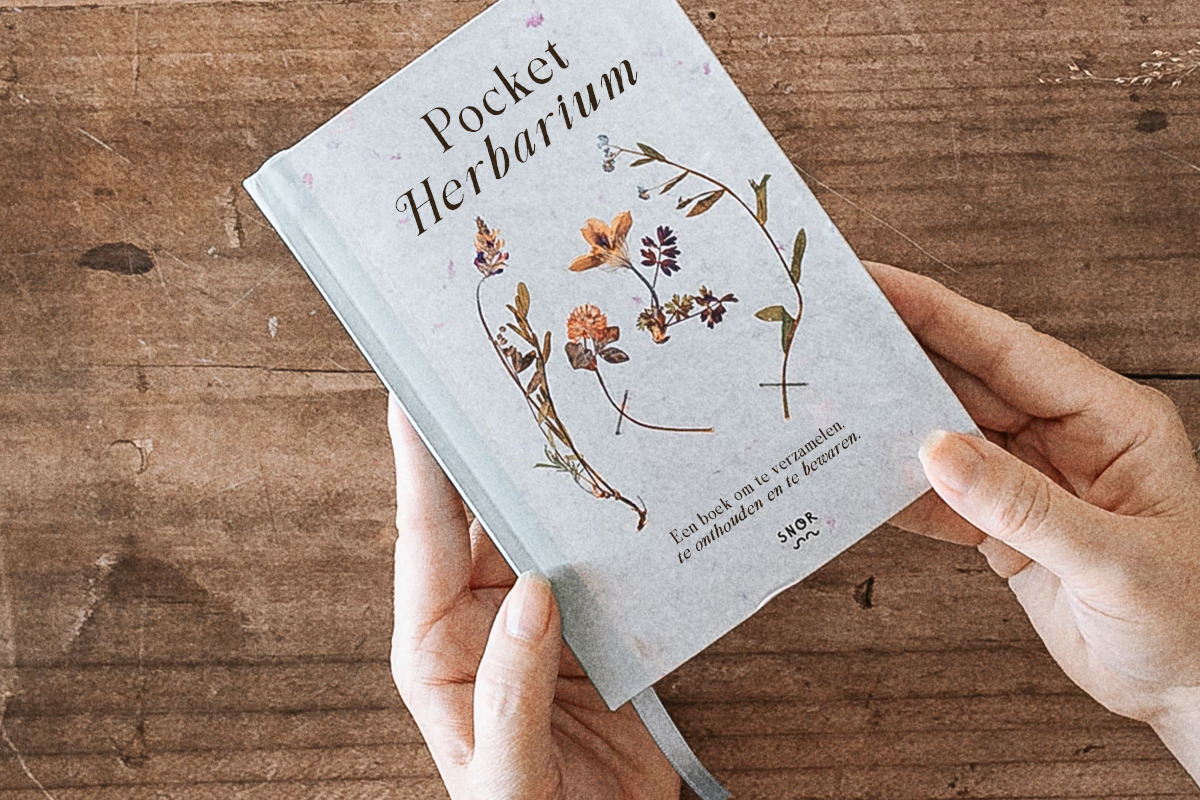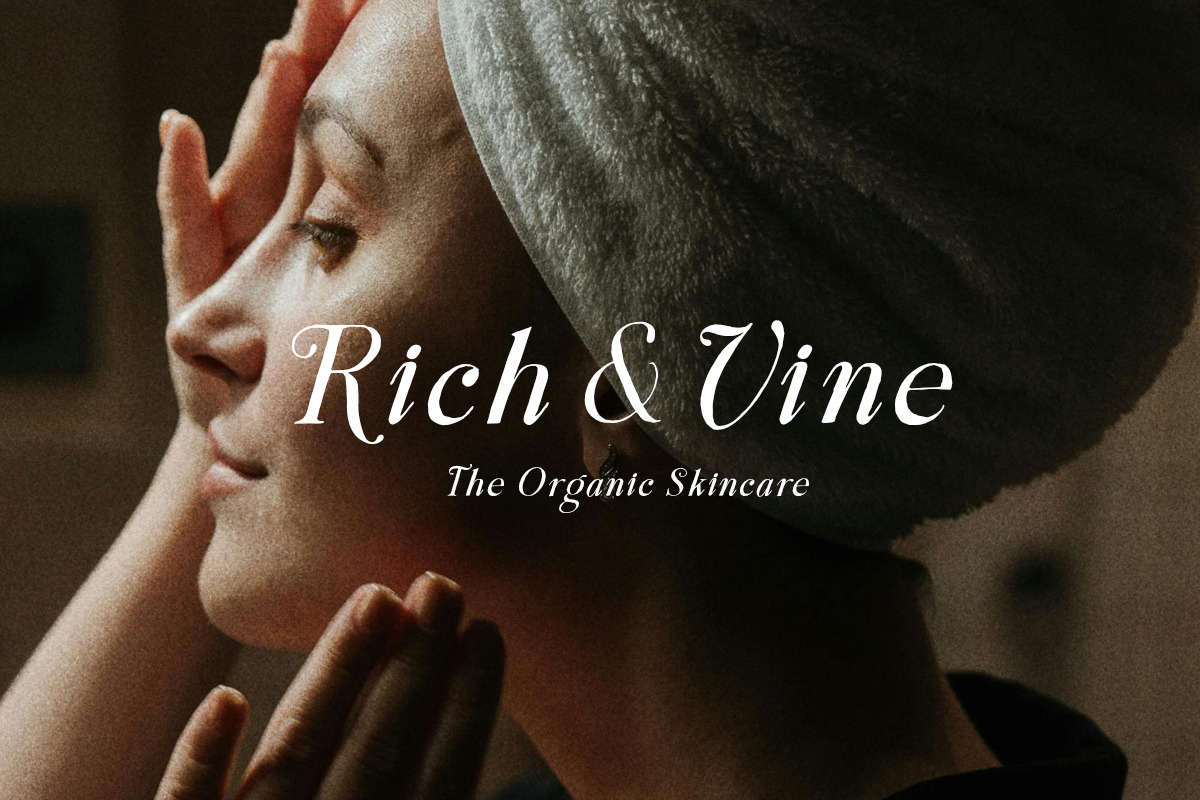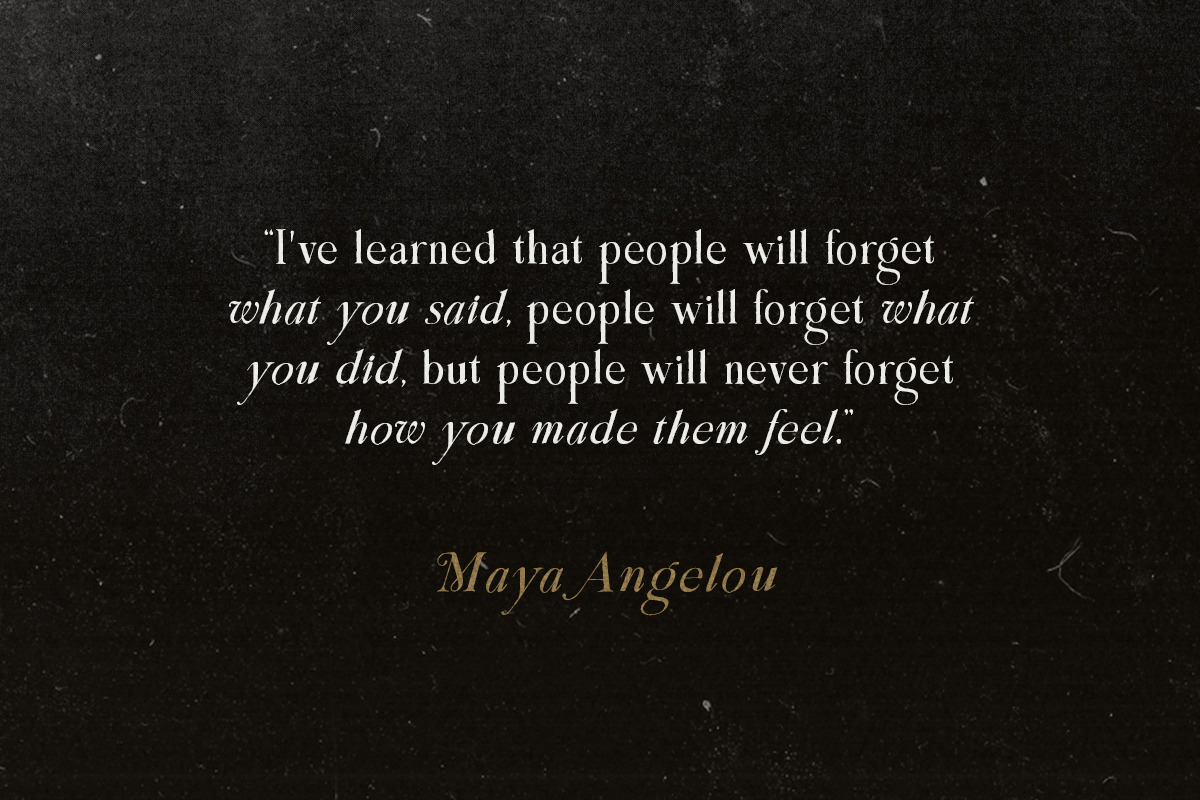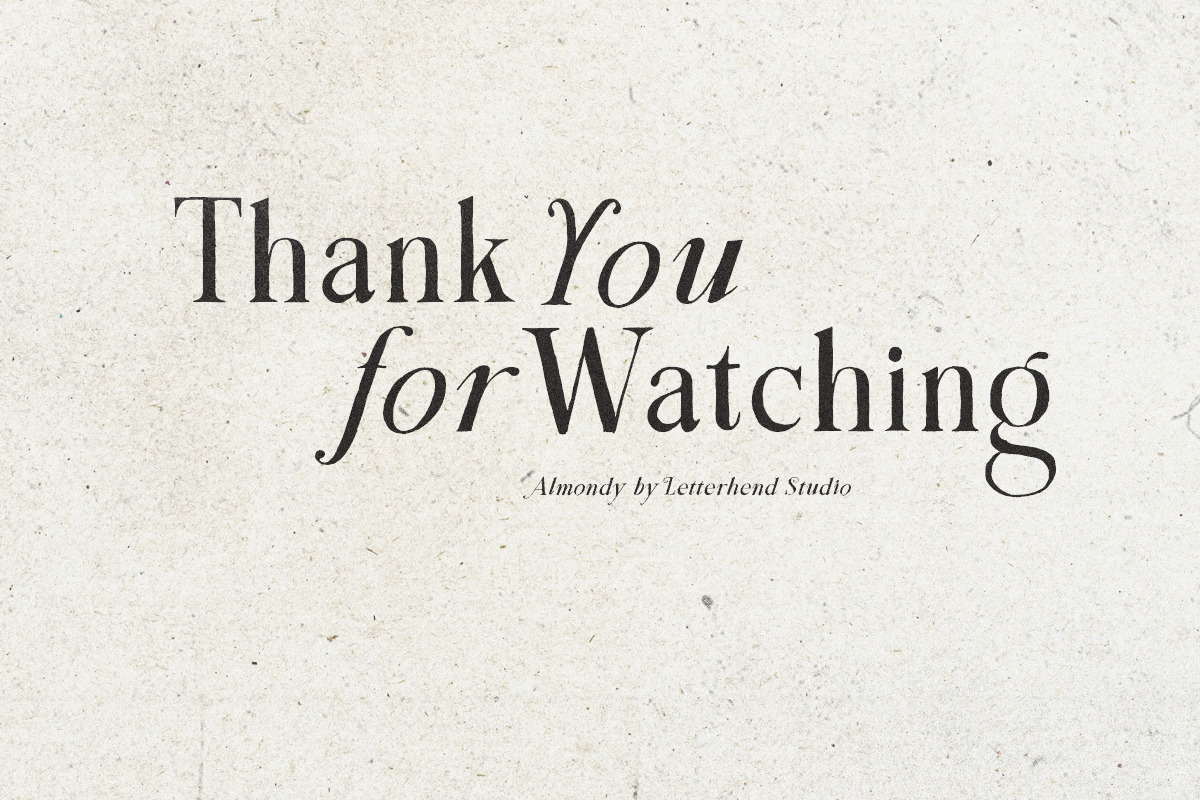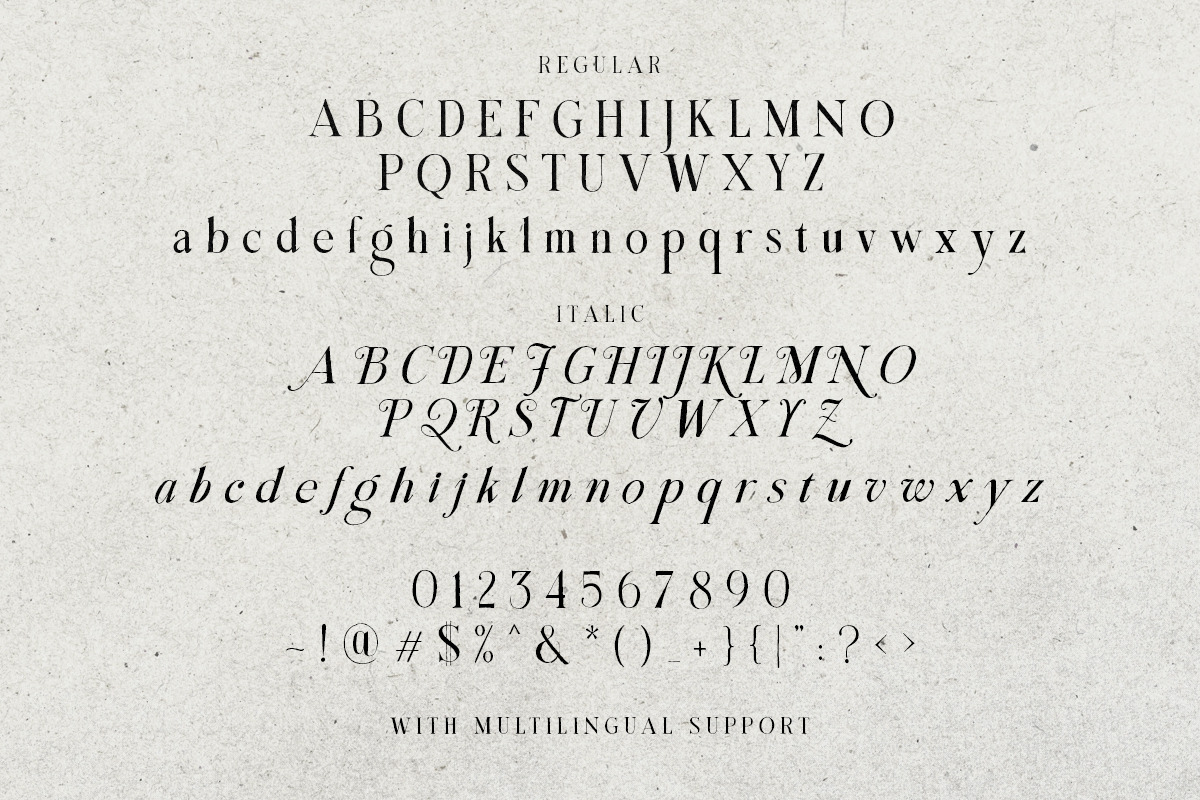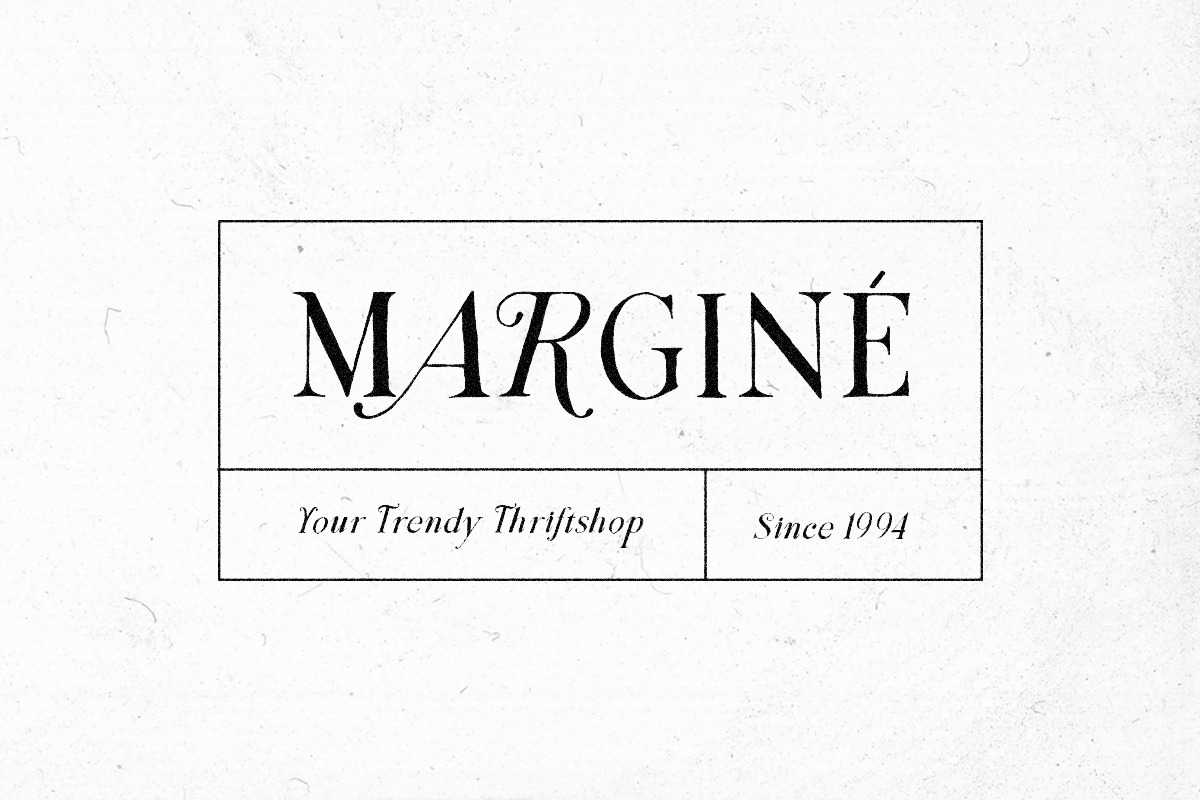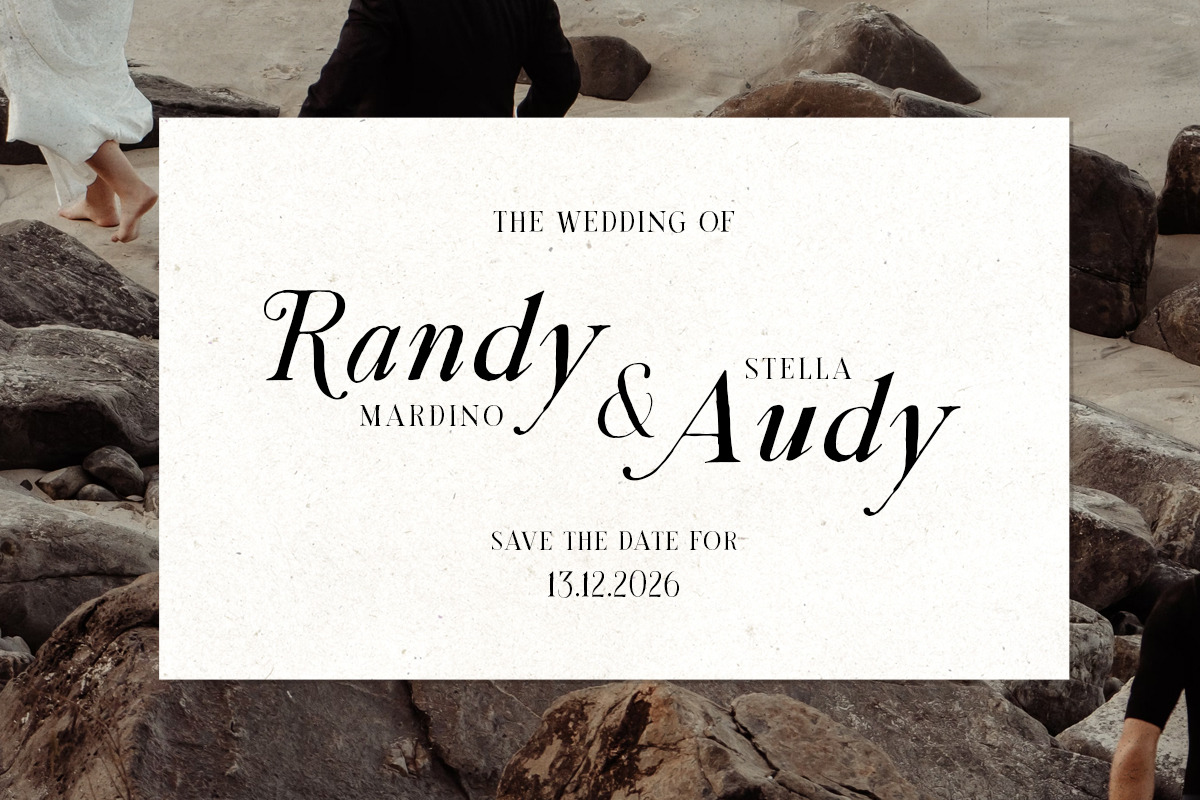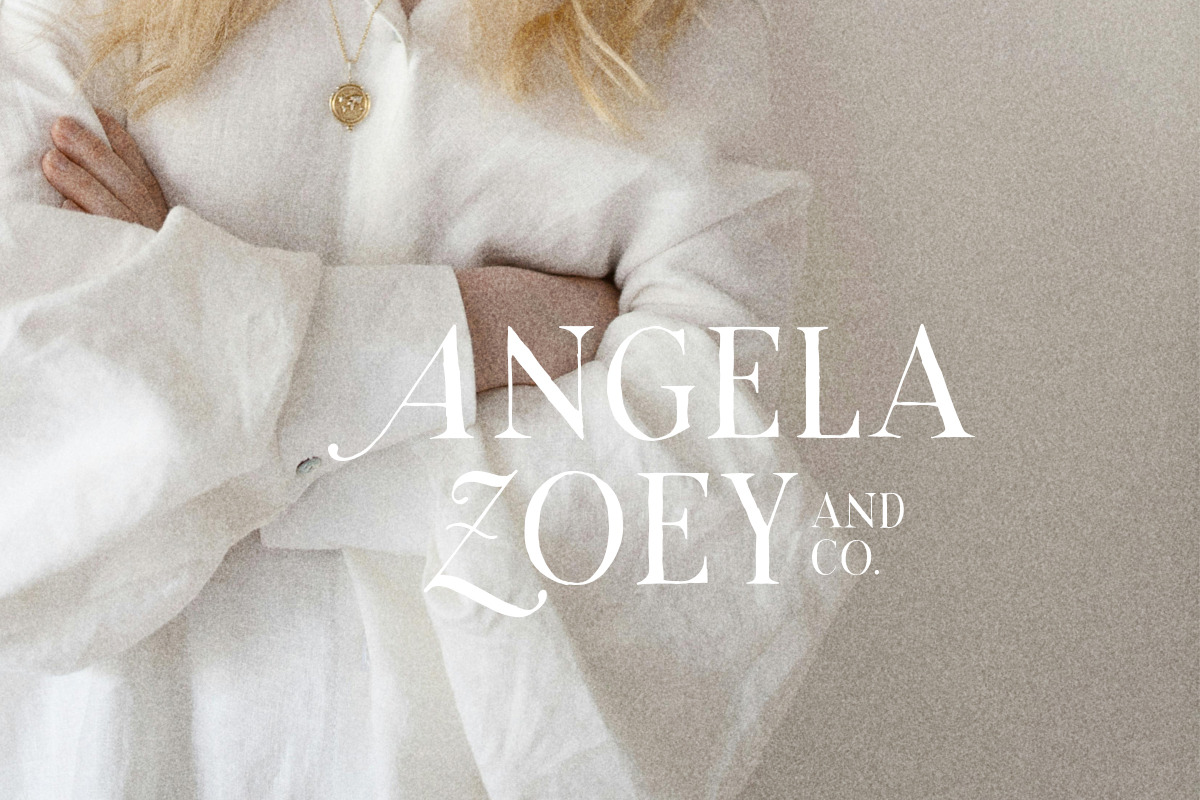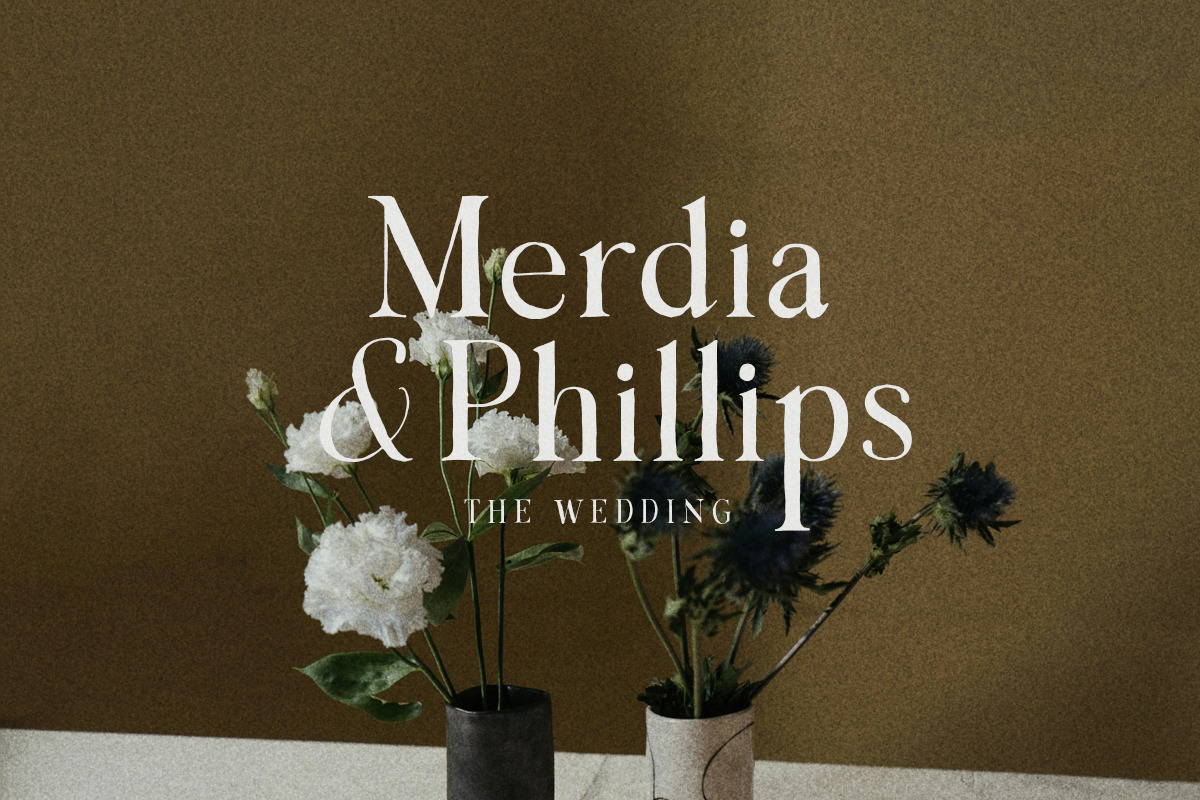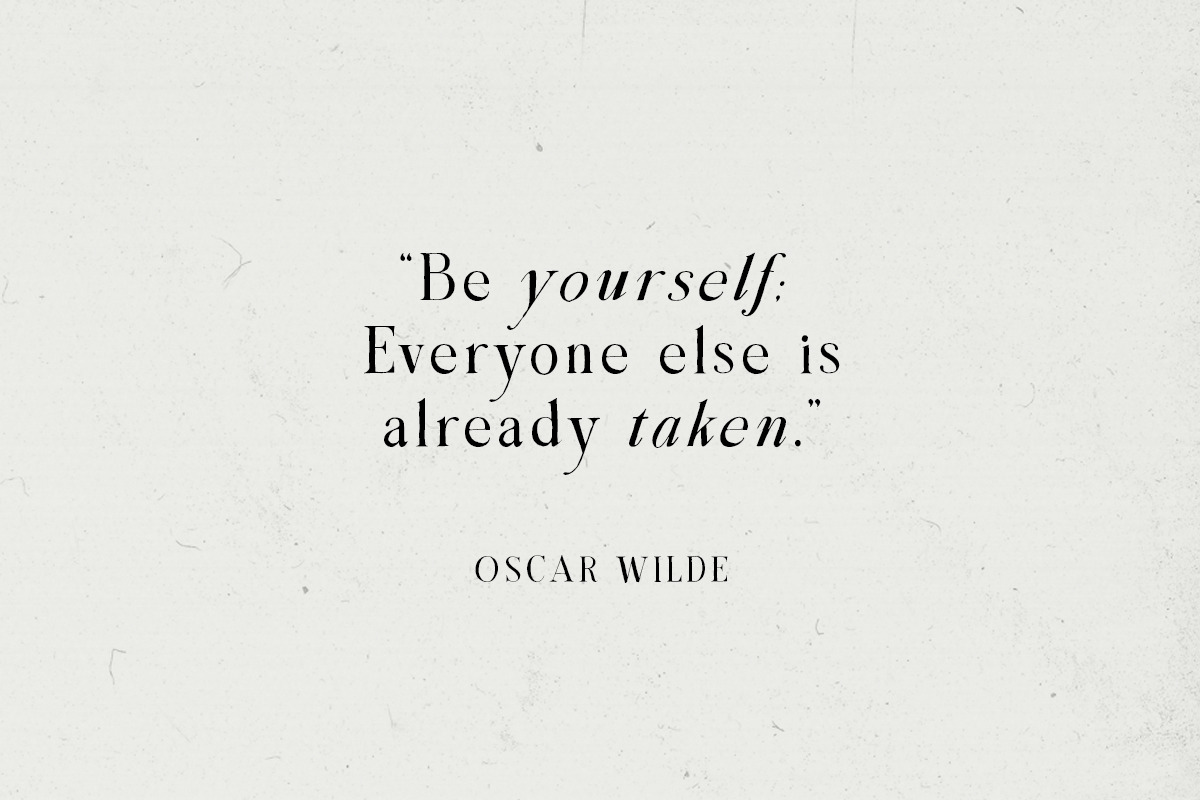
The Almondy Organic Serif
LOOK! THE ALMONDY- An organic serif with stylish looks. It comes with true italic version. Perfectly to be applied to the other various formal forms such as invitations, labels, logos, magazines, books, greeting / wedding cards, packaging, fashion, make up, stationery, novels, labels or any type of advertising purpose.